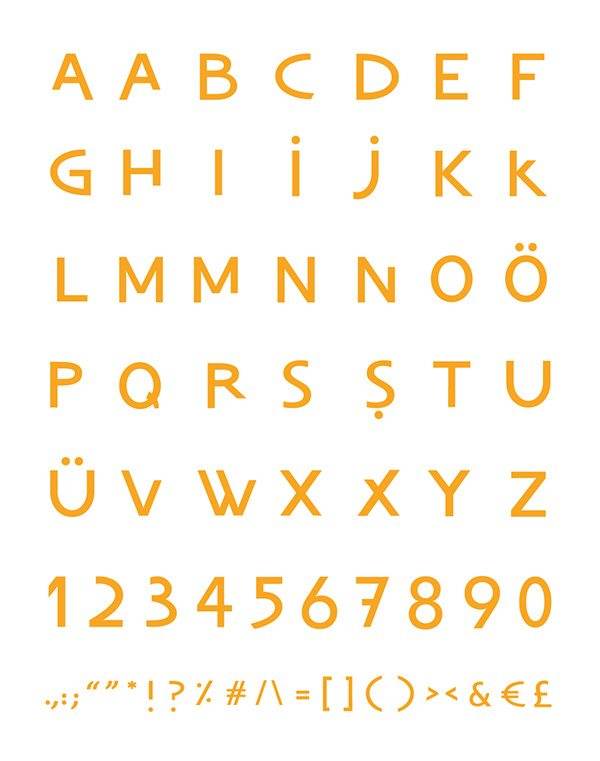
CH. Vladica
Ch. Vladica typeface
Font is named after 19th century architect Ch. Vladica. It is inspired by marbles used as signature.
You can see that signature on the buildings which are being destroyed for urban transformation today. This typeface is made for remembering the signature. Designed by Dilara Şebnem Esendemir.
Ch. Vladica typeface